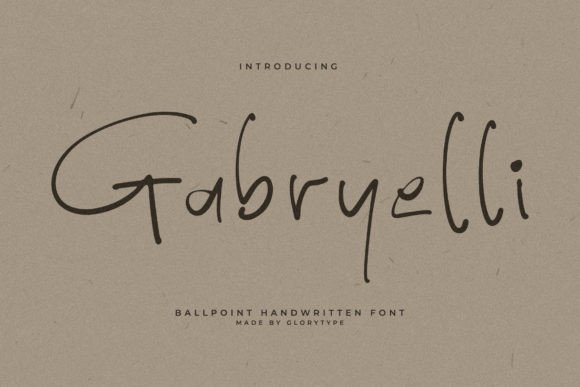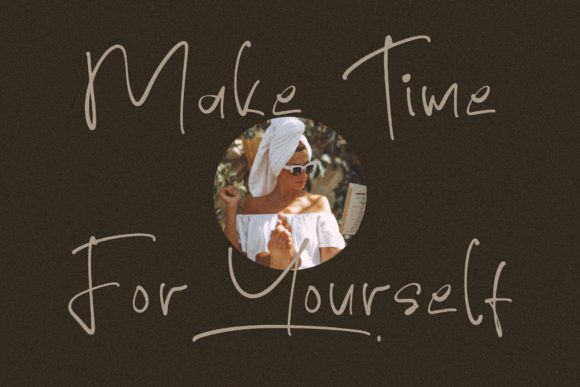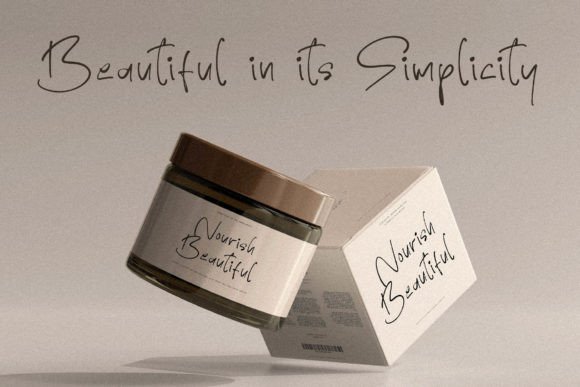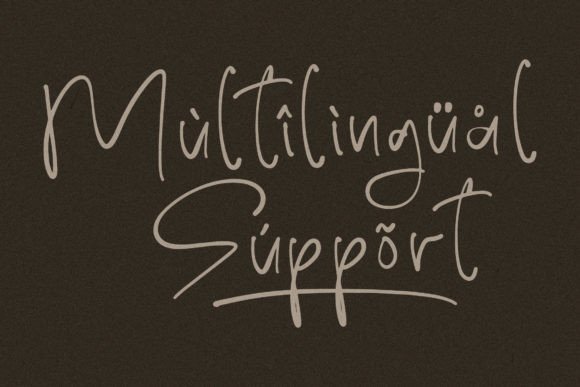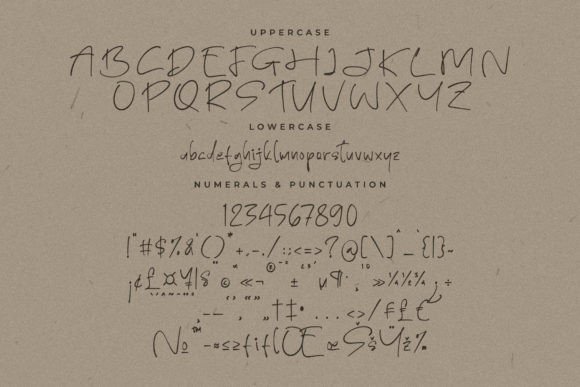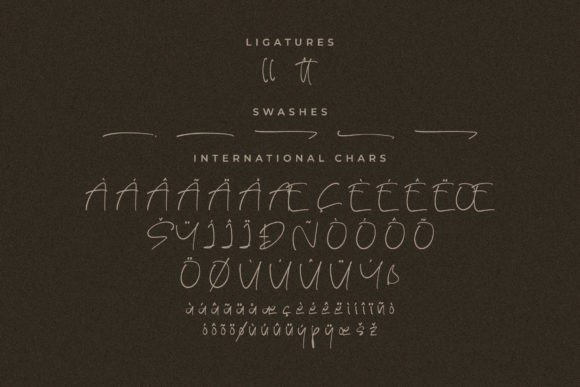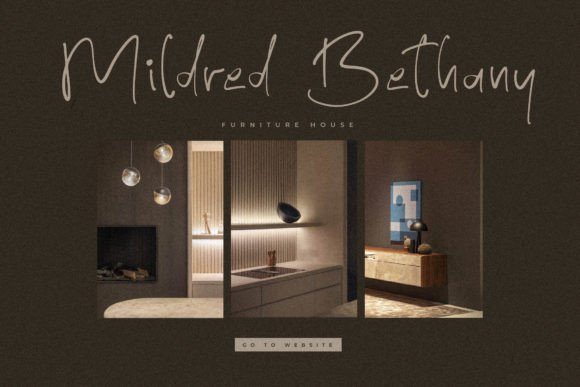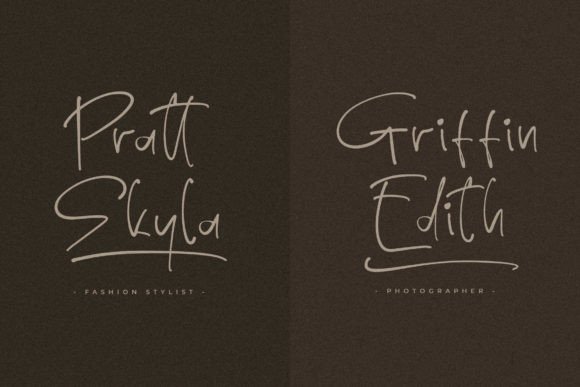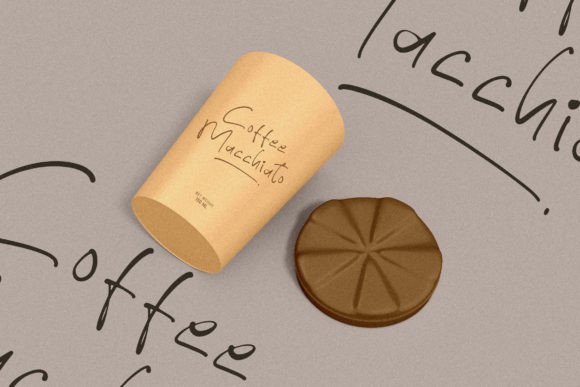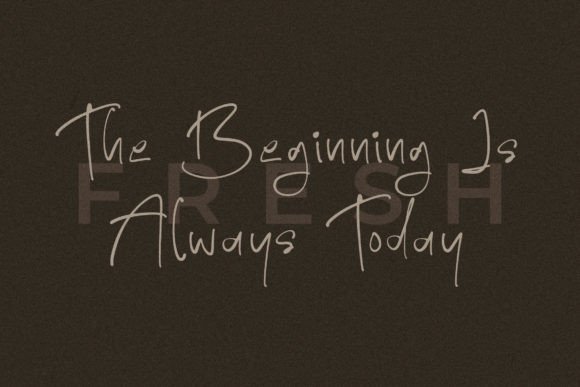
Gabryelli Font
Discover Timeless Elegance with Gabryelli Handwritten Font
The Gabryelli Handwritten Font is a delicate and graceful typeface that effortlessly enhances any design it touches. With its refined strokes and beautiful balance, Gabryelli exudes a timeless quality that’s perfect for both personal and professional design work.
Whether you’re crafting elegant wedding stationery or designing a stylish brand identity, this flowing script font adds sophistication to every project.
Ideal for Invitations, Logos, and Feminine Branding
Gabryelli is the ideal choice for projects that call for elegance and charm. It shines in wedding invitations, event programs, branding suites, social media graphics, and product packaging. Its romantic script style makes it especially appealing for fashion, beauty, and boutique brands.
This font is also excellent for adding a personal touch to quotes, journals, or blog headers, offering a high-end yet approachable feel that resonates across different audiences.
A Flowing Script with Delicate Detail
What makes the Gabryelli Handwritten Font so memorable is its combination of fluid movement and meticulous balance. Each character is thoughtfully designed to mimic natural handwriting, with elegant curves, smooth connections, and well-proportioned spacing.
The script maintains a steady rhythm, allowing for easy readability and beautiful visual flow. As a result, Gabryelli looks just as stunning in single-word logos as it does in longer phrases or headings.
Versatile for Both Print and Digital Projects
Gabryelli is a flexible typeface that performs well across digital platforms and print media. From high-resolution brand kits and business cards to website banners and email headers, this font adapts seamlessly to various formats and sizes.
For a modern yet romantic layout, try pairing Gabryelli with a sleek sans-serif font. This contrast highlights its handwritten charm while keeping your design clean and visually dynamic.
Why Designers Choose Gabryelli Handwritten Font
• Elegant and flowing script design
• Perfect for weddings, branding, quotes, and packaging
• Balanced, legible, and visually pleasing
• Works in both small and large formats
Elevate Your Creative Work with Gabryelli
In summary, the Gabryelli Handwritten Font offers a refined blend of elegance and usability. Its flowing style and delicate charm make it the perfect script font for projects that demand sophistication and emotional impact.
If you’re searching for a handwritten font that feels feminine, timeless, and effortlessly stylish, Gabryelli is the perfect typeface to elevate your designs.